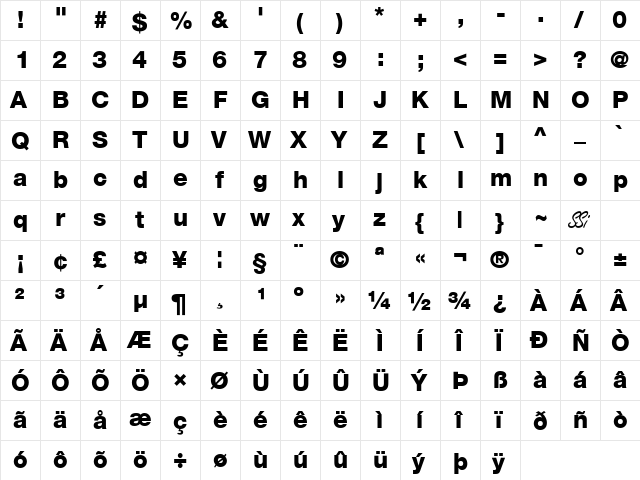
Context Reprise Black SSi Extra Bold
Design Context for Context Reprise Black SSi Typeface
Context Reprise Black SSi offers clean, dependable letterforms without strong stylistic allegiance, making it a practical choice for designers who need flexibility. Its bold stroke weight gives it real presence on the page.
Pro Tip: Use Context Reprise Black SSi in both headline and body roles to test its range before committing to a single application.